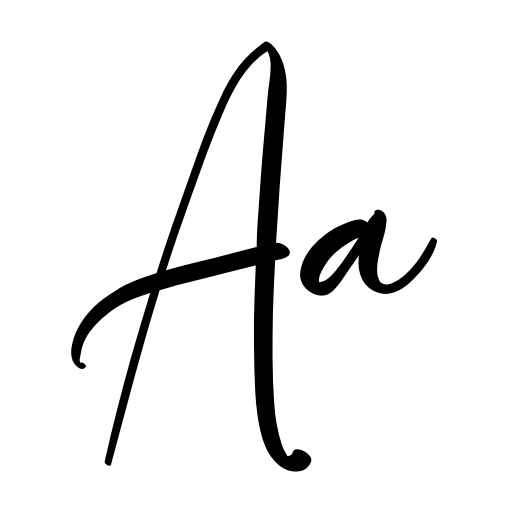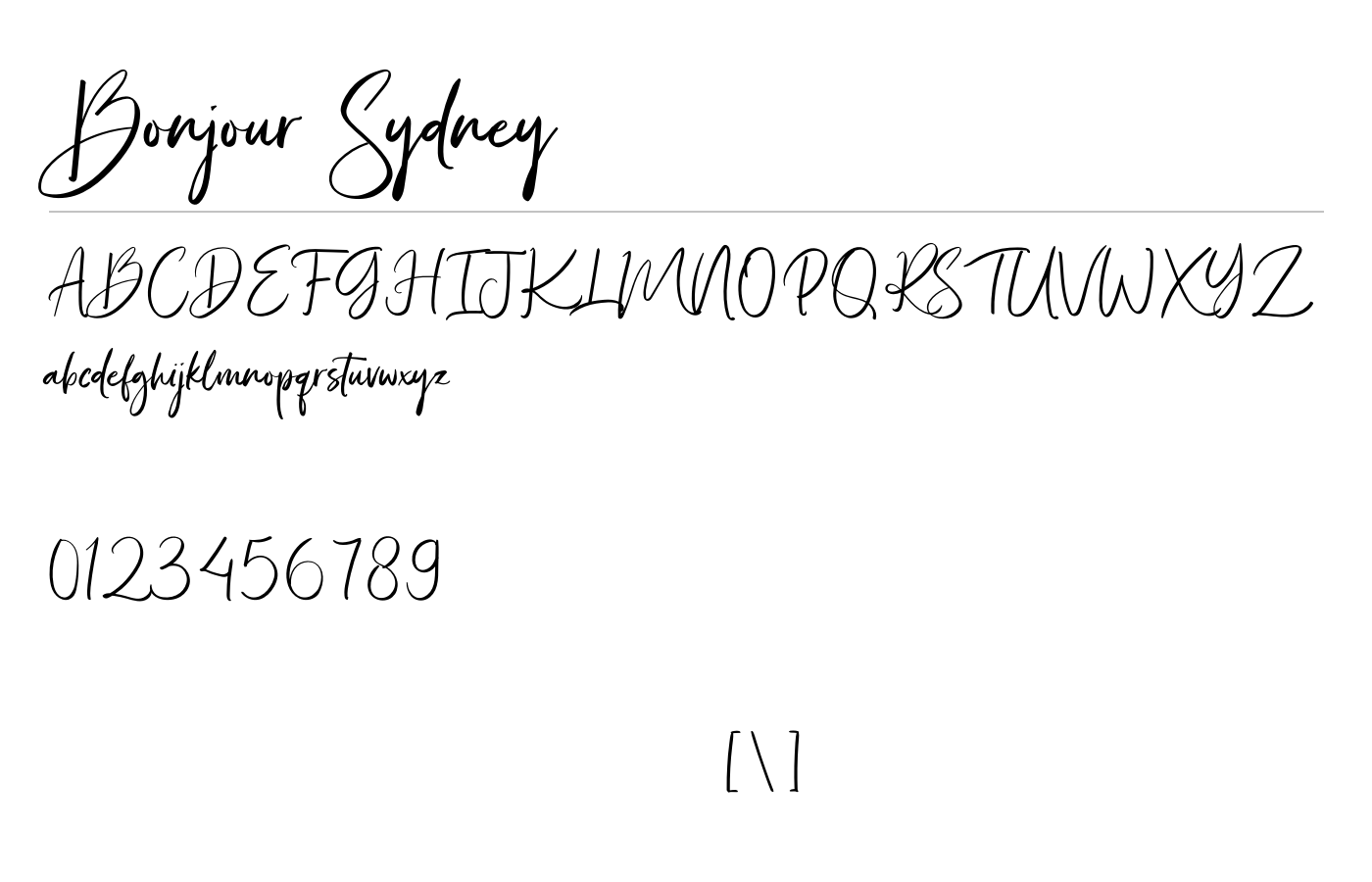
Bonjour Sydney is a charming script font featuring elegant, flowing strokes with a handwritten feel. Its tall, slender letterforms and moderate contrast create a delicate and sophisticated appearance, ideal for adding a personal and stylish touch to branding, invitations, and headlines. This font works beautifully in contexts where a modern, elegant, and approachable vibe is desired.
Bonjour Sydney Font
About Bonjour Sydney Font